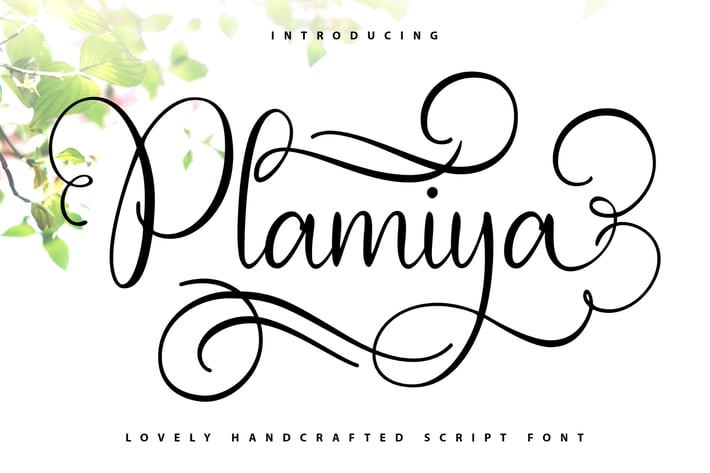
Plamiya | Handcrafted Script Font
Plamiya | Handcrafted Script Font with a calligraphy style, So beautiful on invitation like greeting cards, branding materials, business cards, quotes, posters, and more!